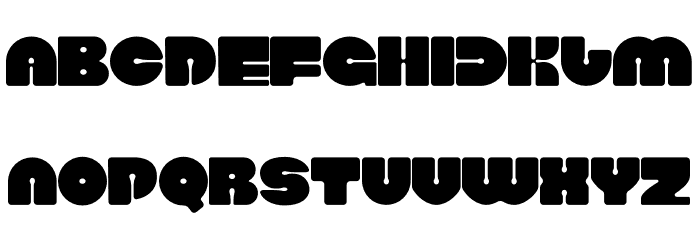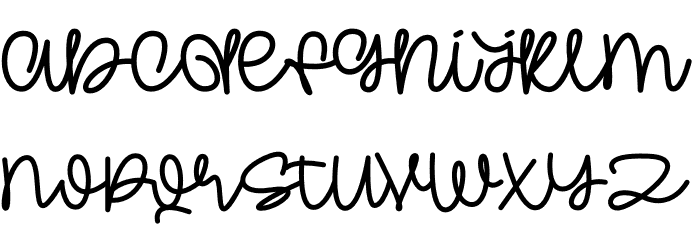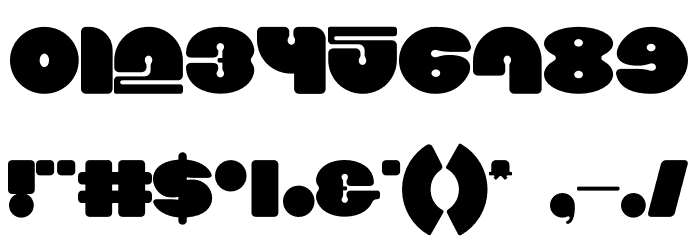
Mixpie Font
This font presents a unique blend of bold, geometric uppercase letters and a contrasting script style for lowercase characters. The uppercase letters are characterized by their thick, rounded shapes and a playful, modern aesthetic. In contrast, the lowercase letters are designed in a flowing, cursive script, adding a touch of elegance and fluidity. The numbers mirror the boldness of the uppercase letters, maintaining the geometric style. Special characters are also bold and rounded, fitting seamlessly with the uppercase design. This dual-style font offers versatility and a striking visual impact.
A bold, geometric uppercase font paired with elegant, cursive lowercase letters.
- Proposed Projects: Ideal for branding, posters, and creative projects that require a modern yet playful touch.
- Contrast: High
- Use Case: Headlines, Logos, Creative projects